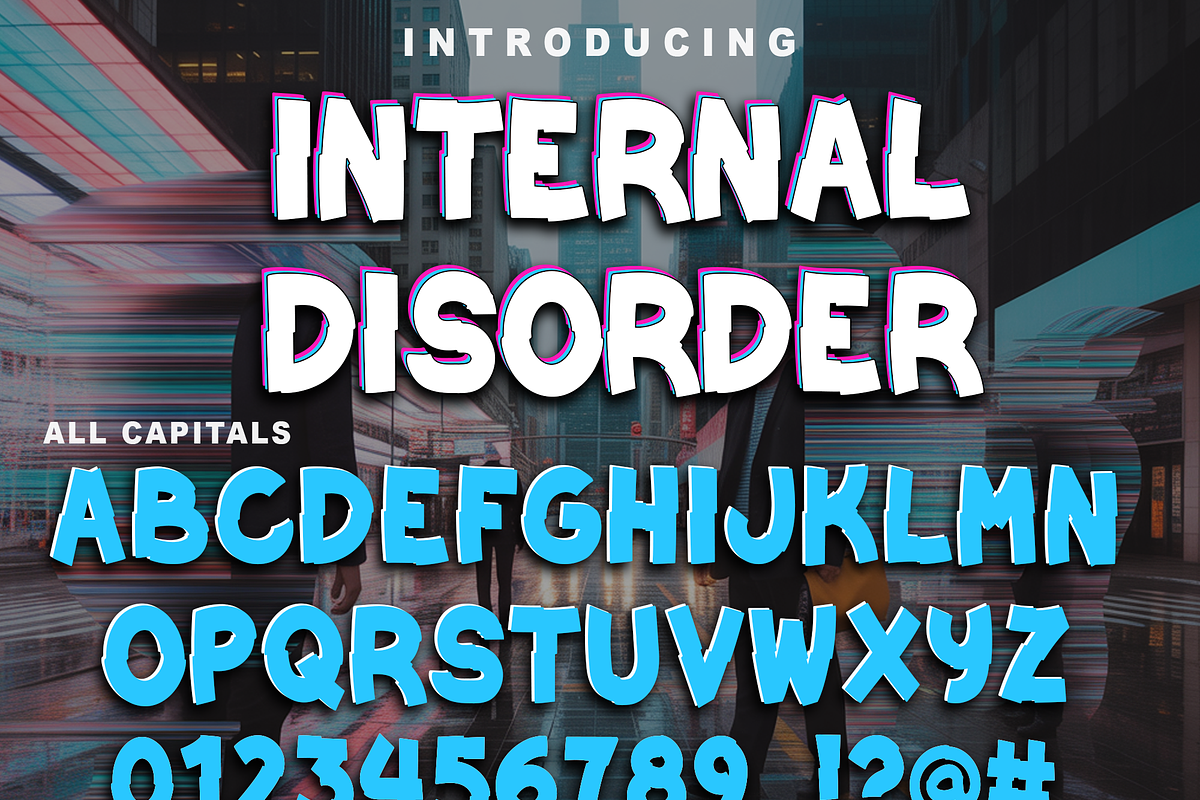
INTERNAL DISORDER
Introducing
INTERNAL DISORDER
- Bold distorted inspired font perfect on your school projects, covers, etc.
- Lifestyle street theme font for branding, website, mobile app etc.
- Available in Uppercase, Numbers, Punctuations and Symbols.